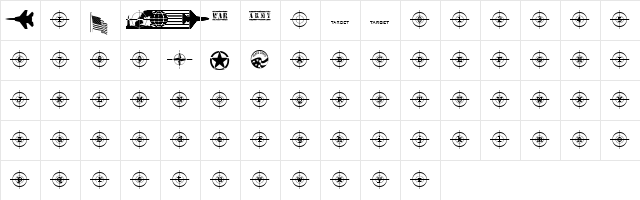
Kosovo Target BC Regular
Design Context for Kosovo Target BC Typeface
Kosovo Target BC is a composed and adaptable typeface that performs quietly and consistently across a wide range of design contexts.